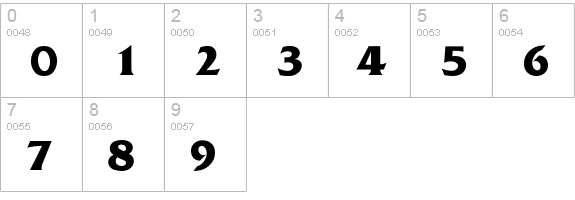
Quadrat-Bold is a strong, high-contrast variant in the Quadrat typeface family \xE2\x80\x94 well suited to headlines, attention-grabbing titles, and strong calls-to-action.
Quadrat-Bold is a sophisticated and modern typeface that exudes strength and elegance. With its bold and commanding letterforms, this font is perfect for making a bold statement in any design project. The clean lines and geometric shapes of Quadrat-Bold give it a timeless appeal, making it suitable for a wide range of applications. Whether you're designing a logo, creating a poster, or crafting a headline, this font will effortlessly catch the eye and leave a lasting impression. One of the greatest features of Quadrat-Bold is that it is available for free download at FontsMarket.com. This means that you can easily access this versatile font and use it in your projects without any cost. With its perfect balance of strength and sophistication, Quadrat-Bold is sure to elevate your designs and make them stand out from the crowd. So why wait? Head over to FontsMarket.com and download Quadrat-Bold for free today!